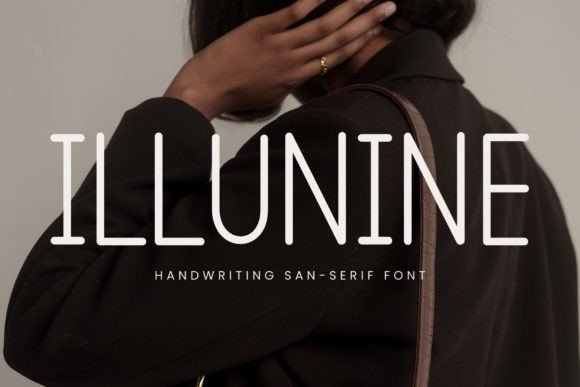
Prepare to be captivated by Illunine Font, a creation by surachet2548 that will ignite your creative spirit and elevate your digital presence. This charming sans-serif font is meticulously designed to bring a touch of playfulness and uniqueness to your projects, making it the perfect choice for invitations, cards, logos, and any endeavor that calls for a dash of delight.
With Illunine Font, you'll discover a world of endless possibilities. Its captivating curves and whimsical strokes will add a personal touch to your designs, ensuring that they stand out from the crowd. Whether you're a seasoned designer or just starting your creative journey, Illunine Font is the perfect companion to bring your vision to life.
Immerse yourself in the boundless charm of Illunine Font, where imagination knows no limits. Its versatility knows no bounds, allowing you to effortlessly create stunning visuals that resonate with your audience. Unleash the power of Illunine Font and let your creativity shine through!